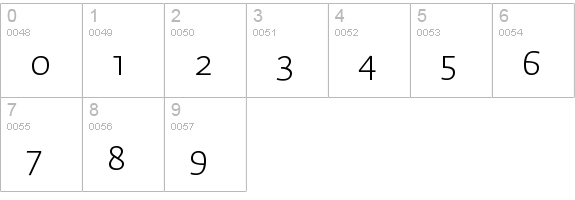
Auto 1 Light is a refined, elegant variant in the Auto typeface family \xE2\x80\x94 well suited to elegant body text, refined sub-headings, and luxury branding.
Auto 1 Light font is a sleek and modern typeface that exudes elegance and sophistication. With its clean lines and refined appearance, this font is perfect for a wide range of design projects, from branding to editorial design. The light weight of the font adds a subtle touch of sophistication, making it ideal for conveying a sense of elegance and professionalism. Best of all, Auto 1 Light font is completely free to download at FontsMarket.com. This means you can easily access this stunning font and incorporate it into your projects without any cost. Don't miss out on this fantastic opportunity to enhance your designs with the timeless beauty of Auto 1 Light font. Download it today and take your designs to the next level!